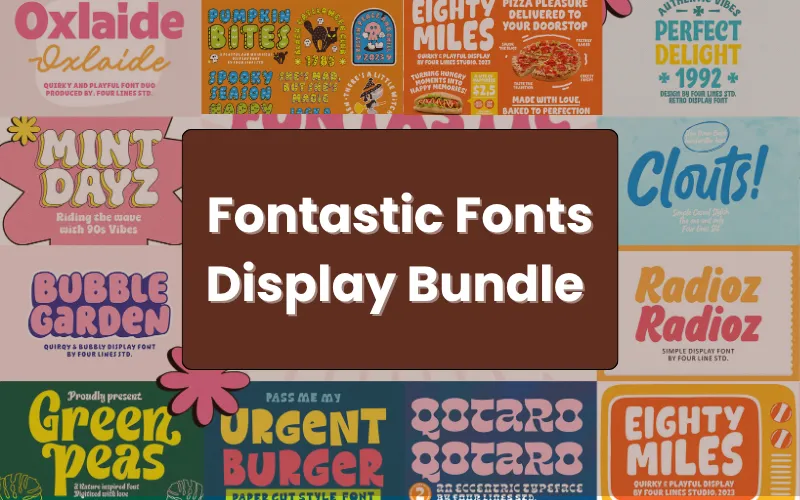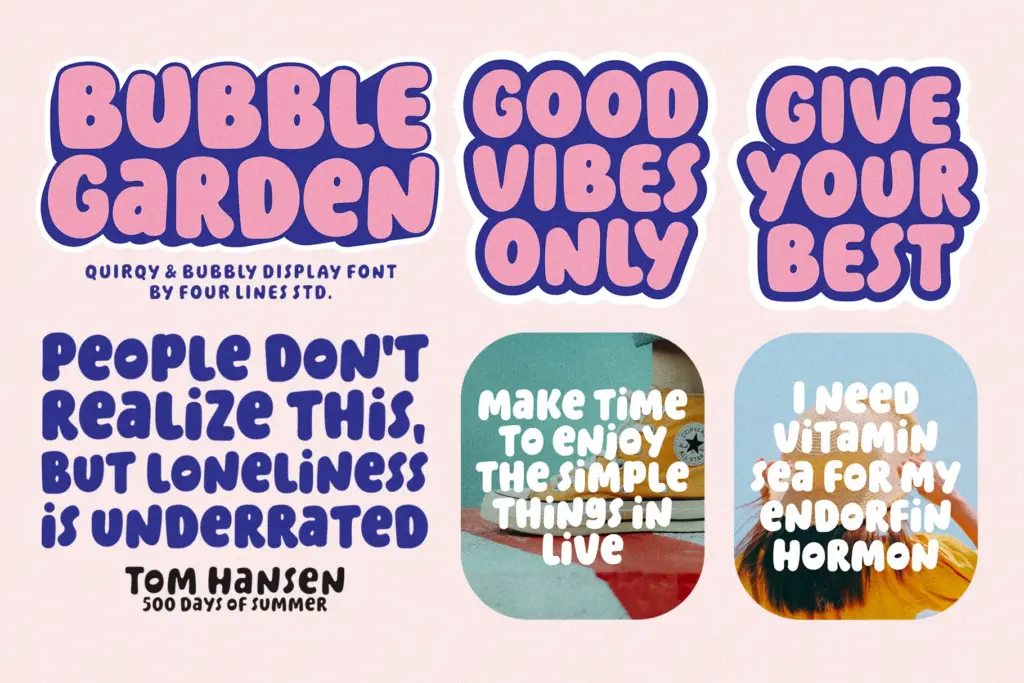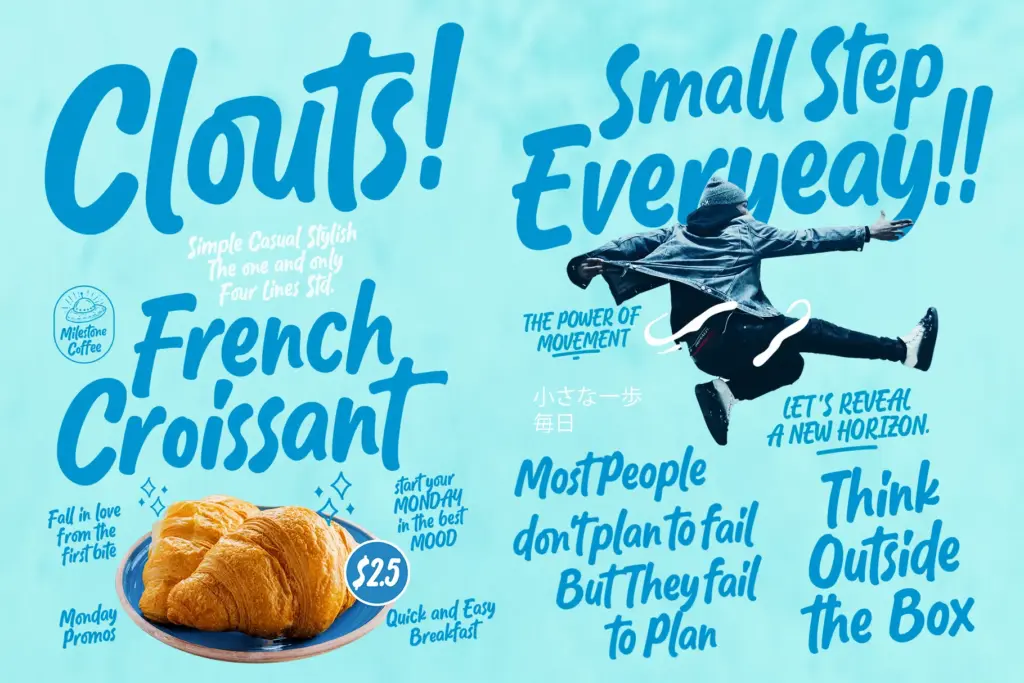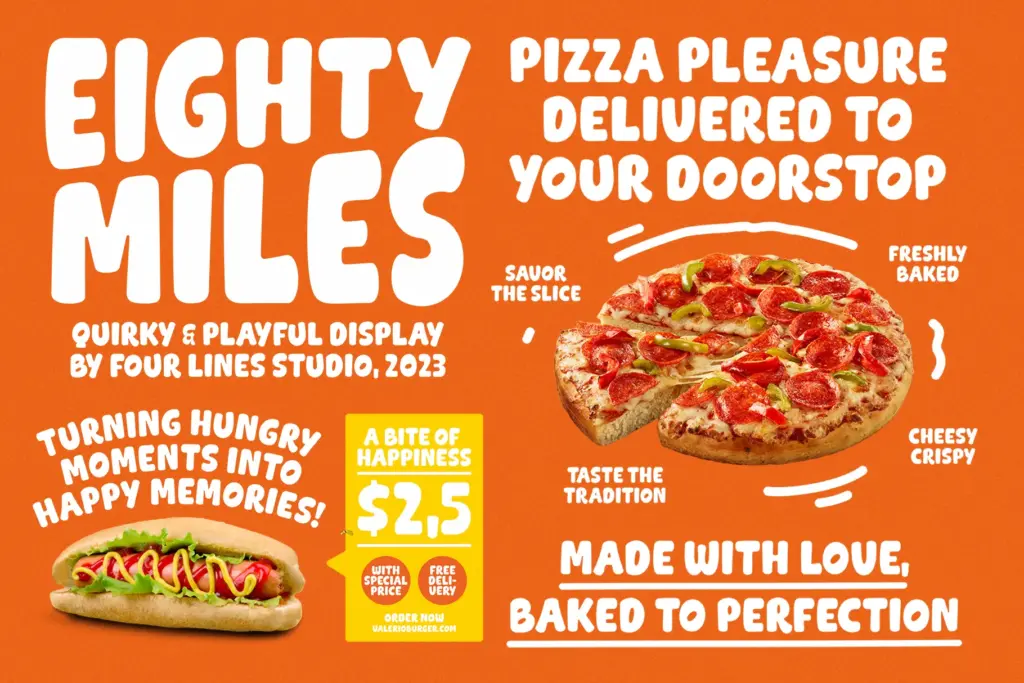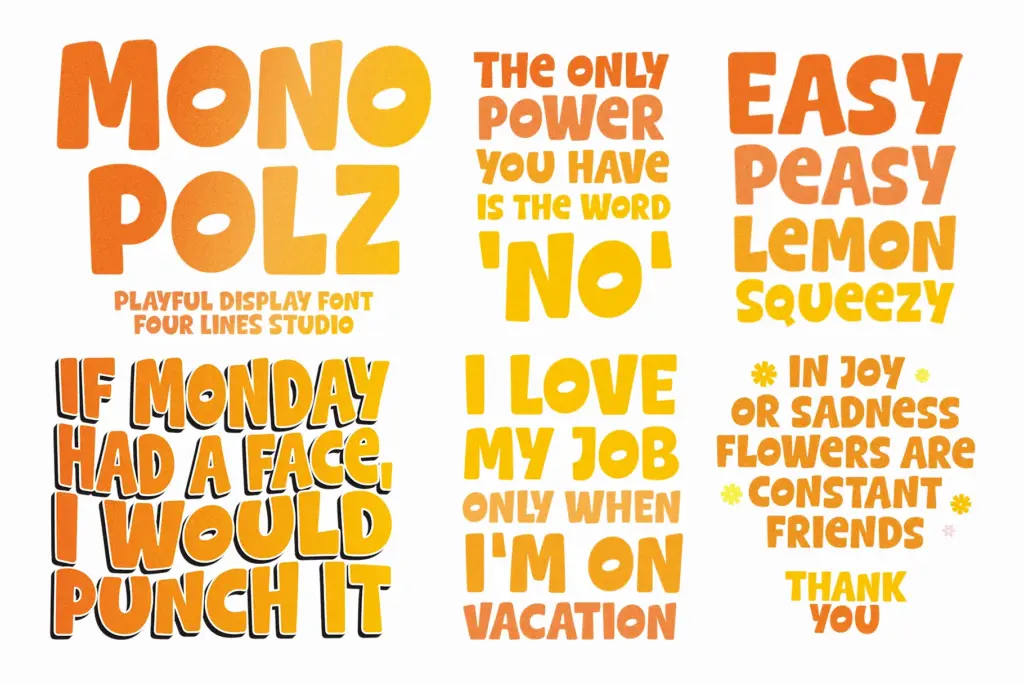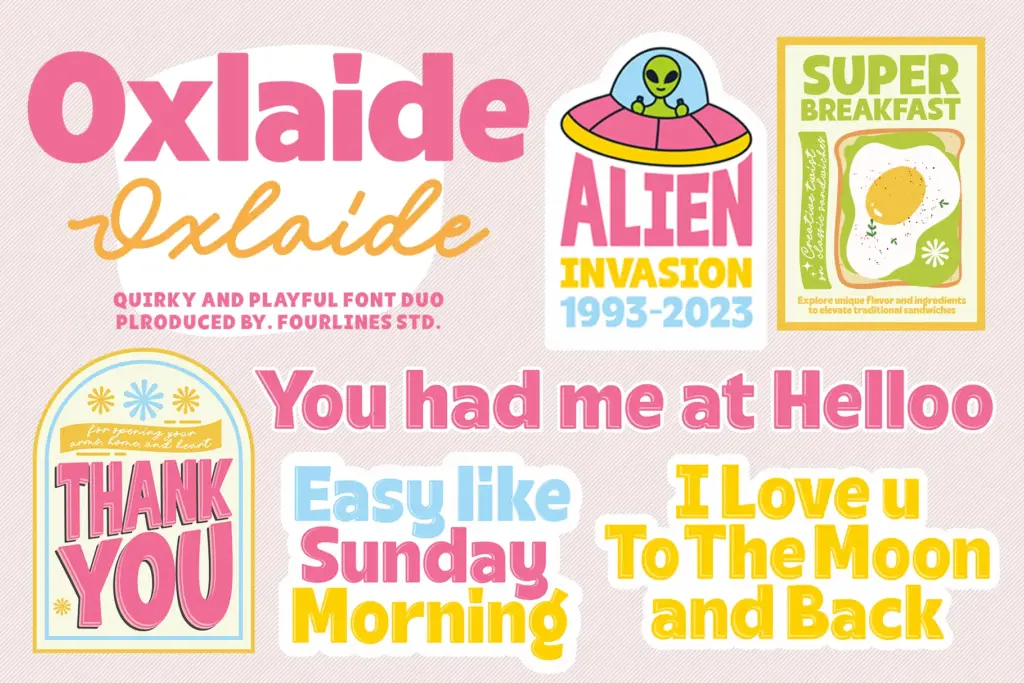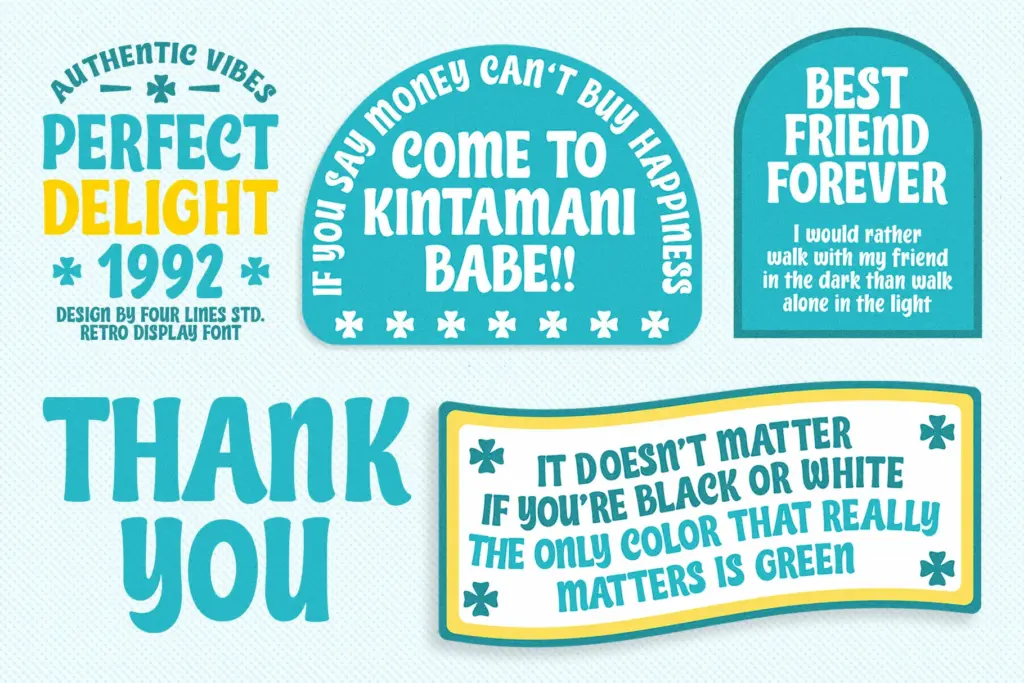
Fontastic Display Fonts BundleÂ
This stunning font bundle is a collection of 25 clean, cute, and cool display fonts that add a touch of life to your ideas.
The bundle includes clean display fonts suitable for:
- LogosÂ
- Headlines and titles
- Posters and billboards
- Signage
- Bookcovers
The Fontastic Display Fonts Bundle Includes:
- Bubble Garden
- Chicharito
- Clouts
- Cosmic Miles
- Dance Sugar
- Eighty Miles
- Funky Monkey
- Gastro Codes
- Green Peas
- Lemon Round
- Mantra Rimba
- Merah Delima
- Mint Dayz
- Mono Polz
- Owly Barn
- Oxlaide
- Perfect Delight 1992
- Pumpkin Bites
- Qotaro
- Radioz
- Seven Moon
- Sweet Peas
- Switzal
- Tiger Chest
- Urgent Burger